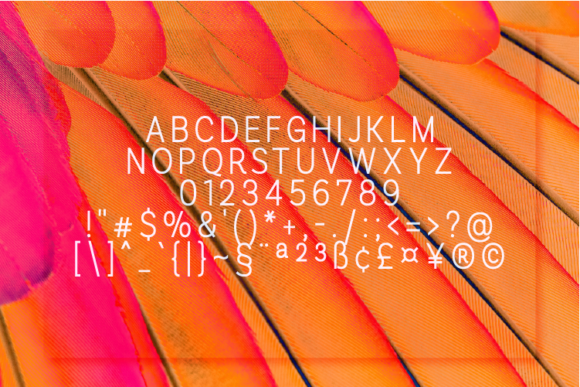
Introduction to Romanhuff Medium Font
Have you ever stared at a blank canvas, struggling to find the perfect font to bring your creative vision to life? That’s exactly what happened to many designers when they discovered the Romanhuff Medium Font. This stunning all caps sans serif font is a game-changer for any design project, offering a timeless and elegant touch that elevates any layout, header, or web design.
Whether you’re a seasoned designer or just starting out, the Romanhuff Medium Font is an essential download for anyone looking to add a touch of sophistication to their designs. In this article, we’ll dive deeper into the features and benefits of this incredible font, and explore why it’s a must-have for any design resource.
Key Features of Romanhuff Medium Font
- High-quality font design ideal for creative projects and design resources.
- Features a transparent background, allowing for easy integration into various design elements.
- Unique characteristics include a balanced and elegant feel, perfect for use in headings, titles, and other prominent design elements.
Honest Review: Romanhuff Medium Font
As a designer, I’m always on the lookout for high-quality design resources to elevate my creative projects. The Romanhuff Medium Font caught my attention, and I decided to give it a try.
What works well: ✨ The font is indeed high quality, with a clean and elegant design that’s perfect for body text. It’s also incredibly versatile, making it suitable for a wide range of creative projects, from corporate reports to marketing materials. Additionally, the transparent background option makes it easy to overlay text on images.
- Clean and elegant design
How to Use Romanhuff Medium Font
The Romanhuff Medium Font is a versatile, high-quality font suitable for various creative projects. It can be downloaded for free, offering a transparent background that makes it easy to use with different backgrounds.
Tips for Getting the Most Out of Romanhuff Medium Font
For optimal results, use the Romanhuff Medium Font in conjunction with high-quality images and backgrounds. Experiment with different font sizes and colors to create visually appealing designs.
Common Use Cases for Romanhuff Medium Font
The Romanhuff Medium Font is suitable for a wide range of creative projects, including:
- Print media